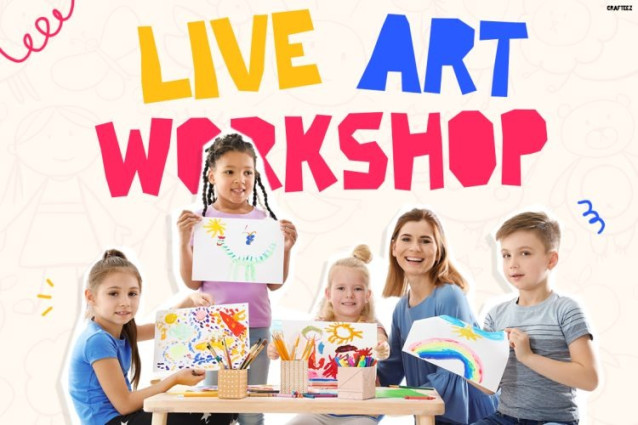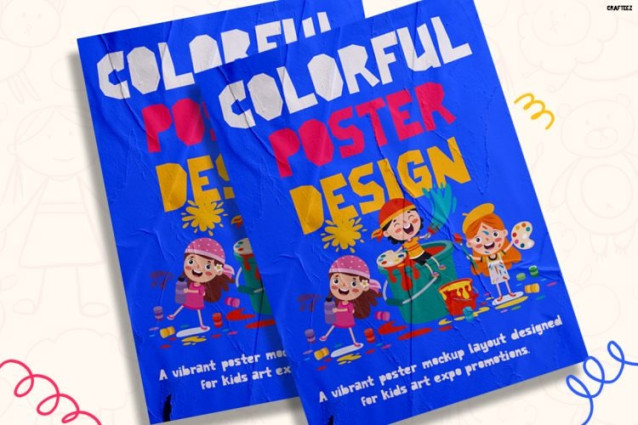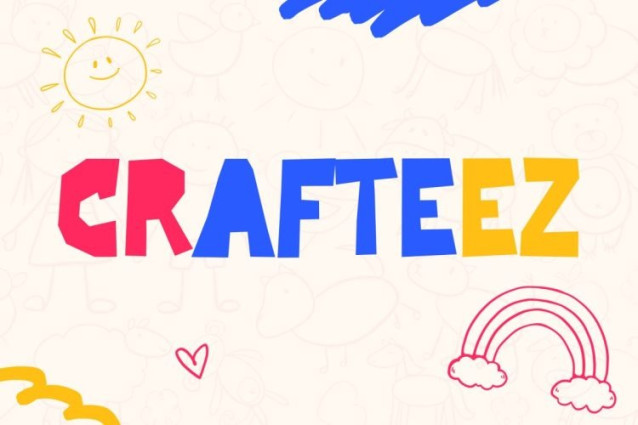
Crafteez Font a fun and friendly appearance that instantly captures attention in kids-themed designs. Because of its artistic and imperfect lettering style, Crafteez feels expressive, energetic, and full of personality. In addition, the font blends doodle-inspired aesthetics with strong readability, so every headline looks exciting while still staying clear and easy to read. As a result, your designs feel more lively, creative, and unforgettable for children and family audiences.
Moreover, Crafteez works beautifully for educational content, art events, and playful branding because of its warm and imaginative character. Whether you are designing posters, activity books, classroom projects, or social media graphics, this font helps your visuals feel more engaging and interactive. Therefore, Crafteez becomes a perfect choice for creators who want typography that looks joyful, artistic, and kid-friendly.